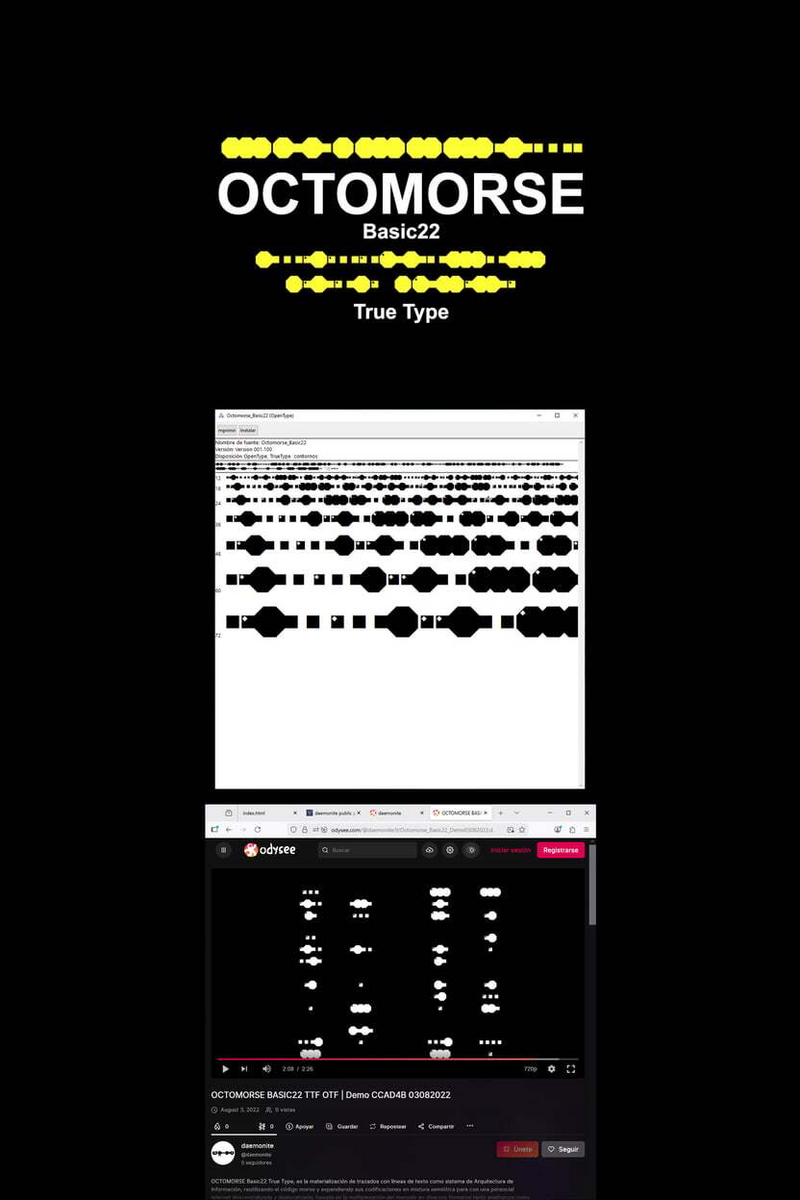
How to Infuse Playful Personality into Your Social Media Storytelling with Octomorse Basic22 R1
Hey there, creative wizard! Ever feel like your designs need a little… zip? A sprinkle of pure, unadulterated joy? Well, let me introduce myself. I'm Octomorse Basic22 R1, and I'm basically sunshine in font form, ready to add a dash of delightful energy to everything you create.
You know how it is – your feed is buzzing, your stories are flying, and you need to grab attention in a blink. That's where I come in. I wasn't just designed; I was brewed in a cauldron of giggles and good vibes, specifically for YOU, the social media content creator who wants to make every post pop. I fit right into your modern design projects by making your visuals instantly more approachable and memorable.
My secret? It's my delightfully quirky curves and energetic flow. I'm legible, yes, but I'm also bursting with character, making your messages not just read, but felt. Tired of your captions blending into the background? Want your quotes to practically sing? I bring that instant spark, turning mundane text into a mini-celebration. My unique charm solves the challenge of generic typography, ensuring your brand voice isn't just heard, but remembered with a smile. Think of me as your trusty sidekick for all things bright and brilliant. My mantra? Octomorse Basic22 R1: Where Every Word Winks!
So, where do I shine the brightest? Imagine me as the star of your Instagram story headlines, giving your latest tutorial a friendly, approachable vibe. Picture me in your YouTube thumbnails, practically inviting clicks with my cheerful presence. I'm perfect for event announcements, playful infographics, brand quotes, or even just adding a touch of personality to your blog post titles and carousels. From motivational Monday graphics to your latest product reveal, I ensure your content feels genuine, vibrant, and utterly shareable.